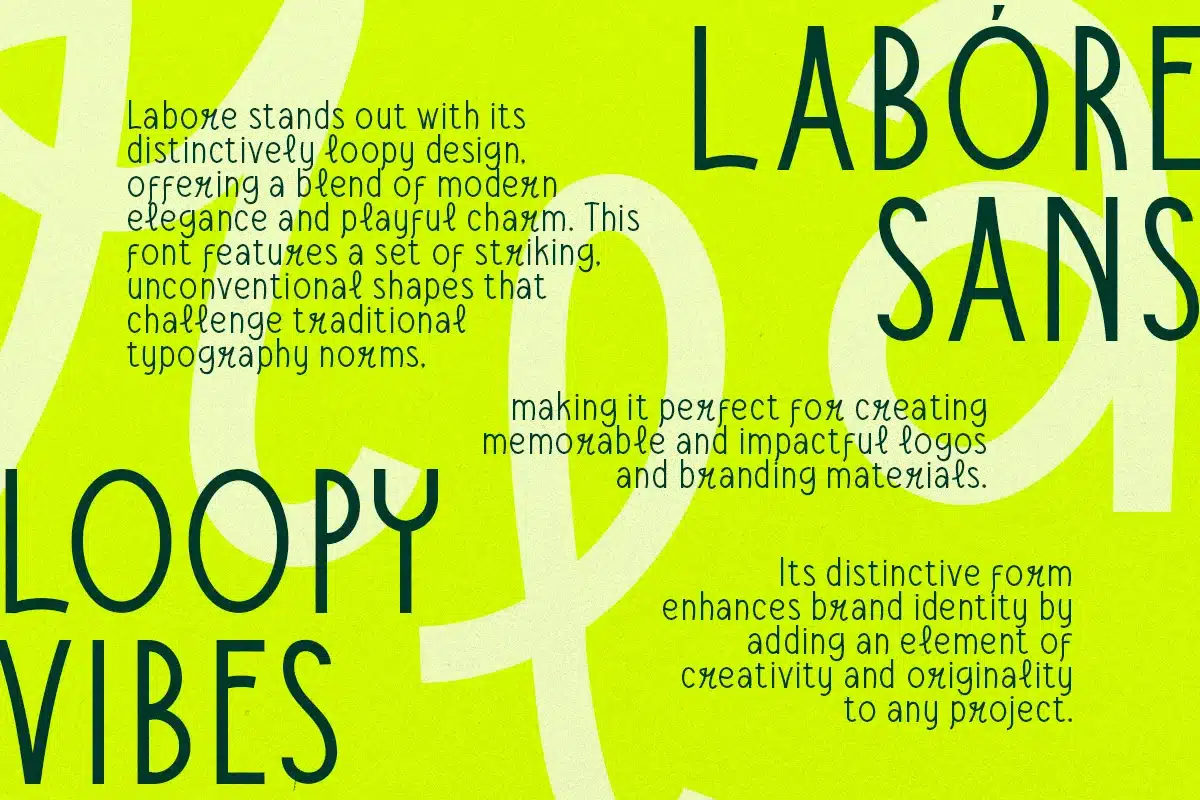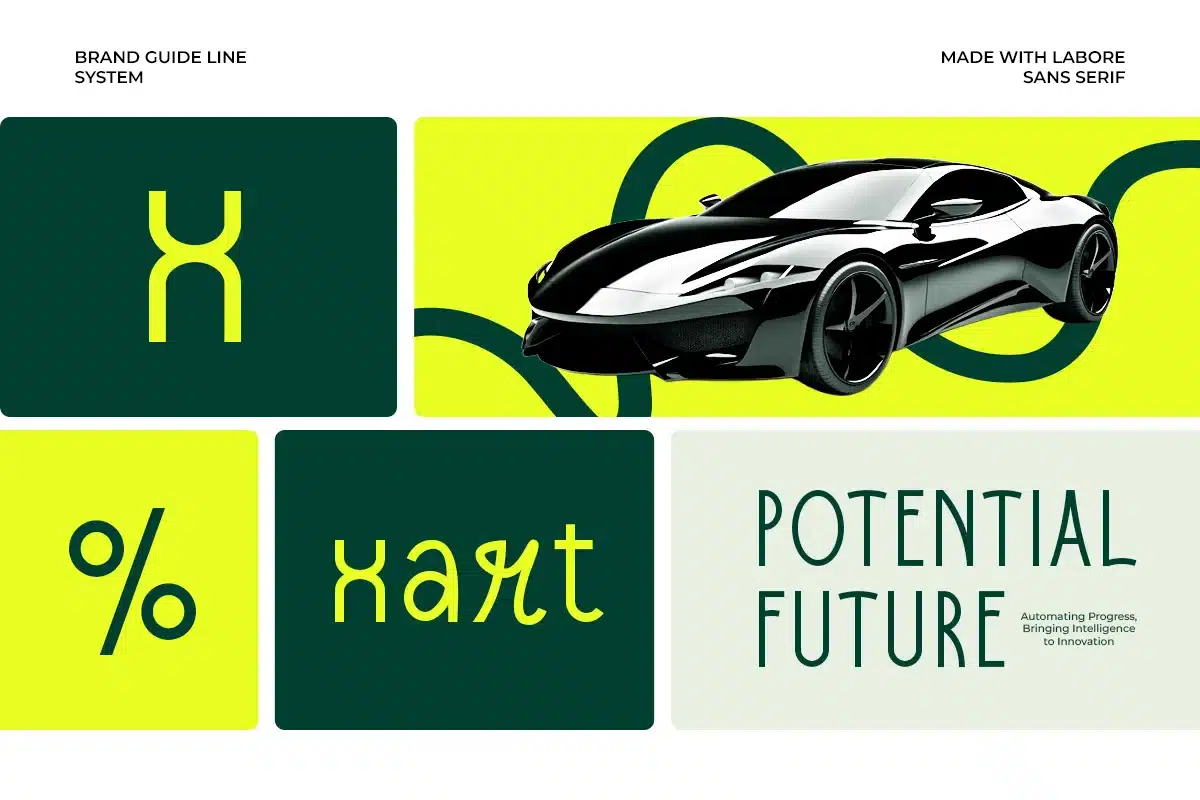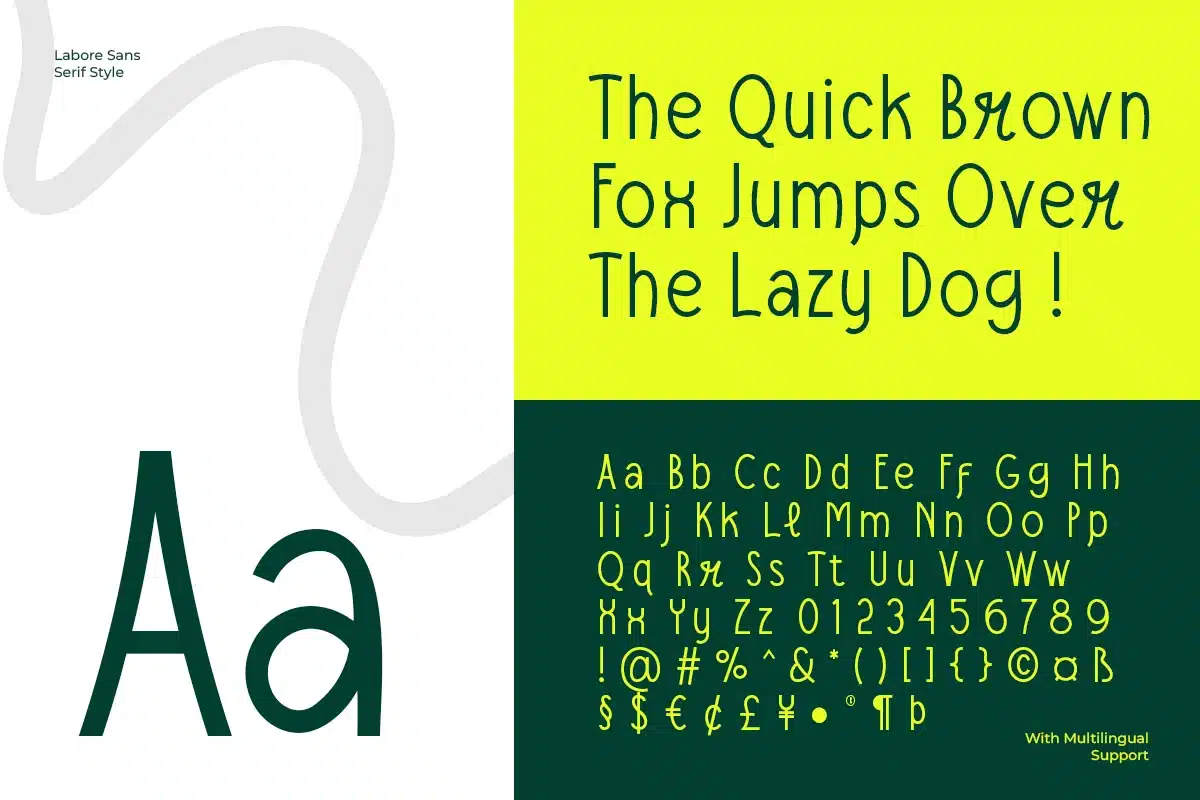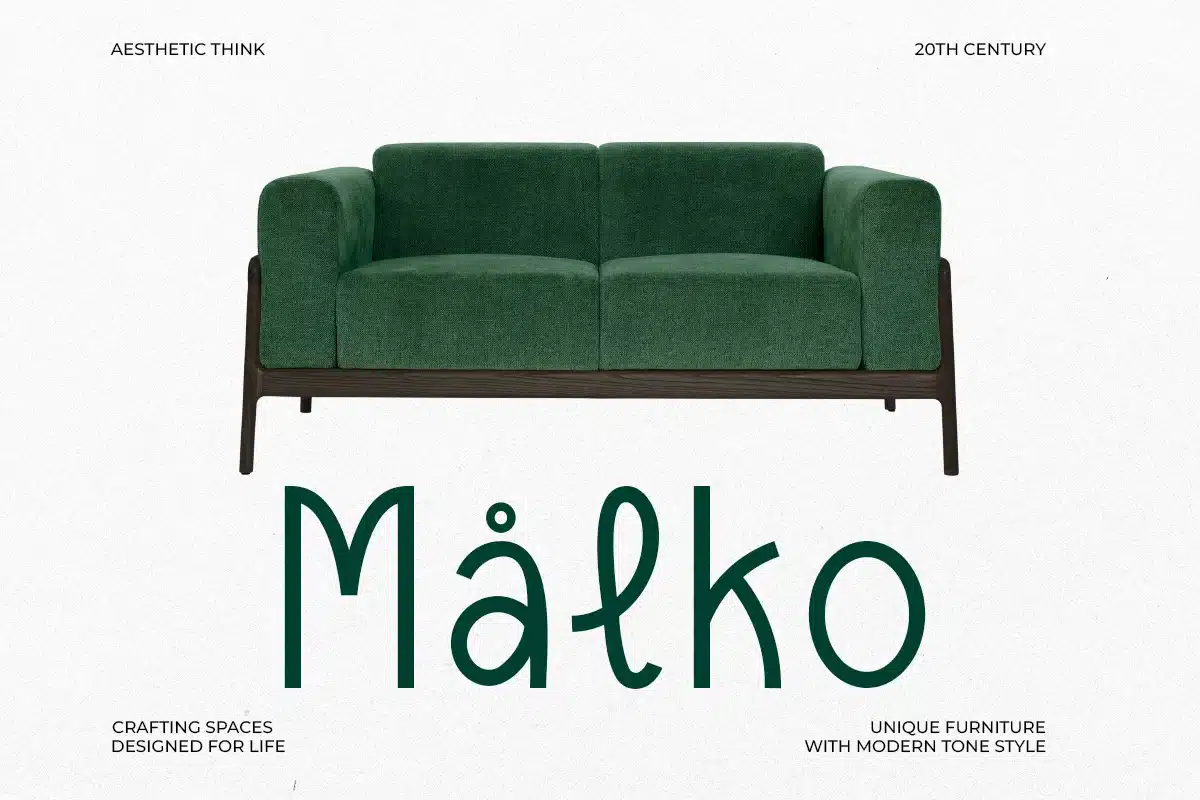
Labore – Modern Craft Font
Labore - Modern Craft
Introducing Labore, a modern sans serif font family designed for logotypes. Its uppercase letters showcase sleek sophistication, while the playful lowercase adds unique charm. This versatile font harmonizes contemporary elegance with delightful creativity, perfect for elevating your branding.